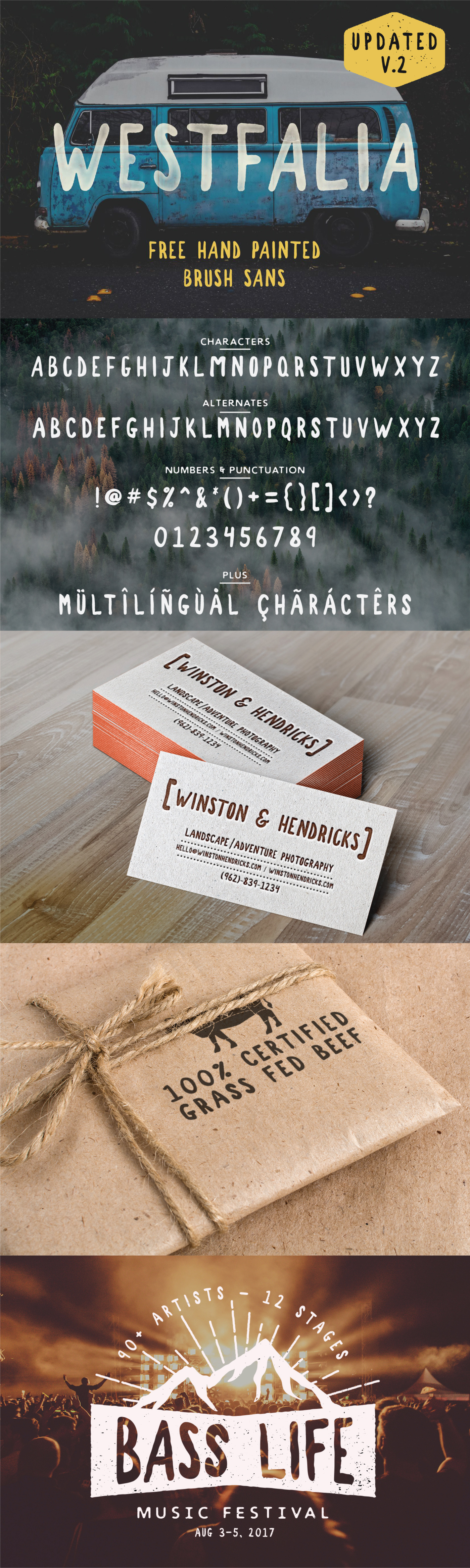
Westfalia V.2 - Hand Drawn Font
Westfalia V.2 is an updated version of the wildly popular free hand painted brush font.
Now featuring a full set of alternate characters for seamless use in a variety of projects without repeating letters. Also, the updated version includes a wide range of international & multilingual characters.
This font provides an authentic hand drawn feel with its messy edges and varied line thickness. Great for any design work related to the outdoors and exploration. Perfect for branding, logos, quotes, product packaging, cards, invitations & much more!